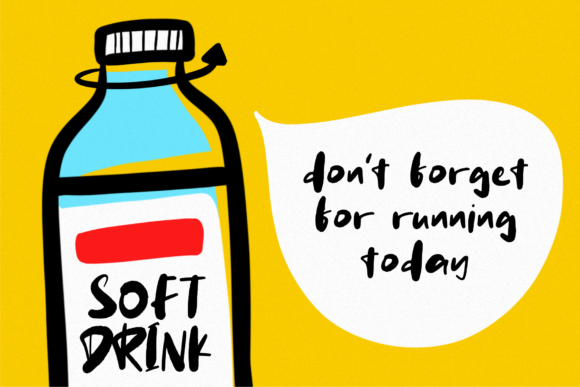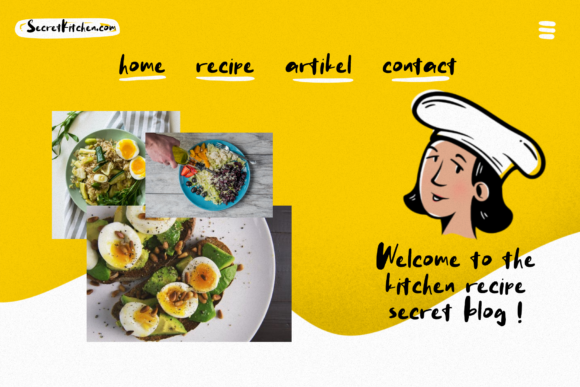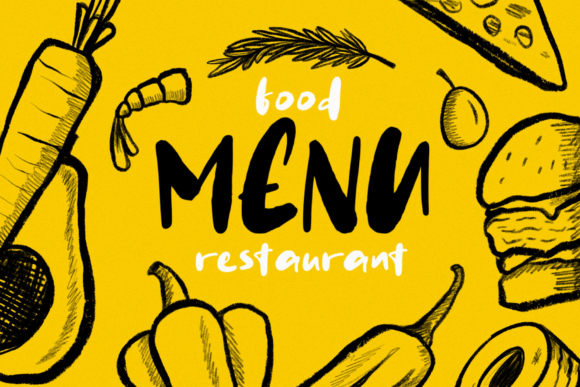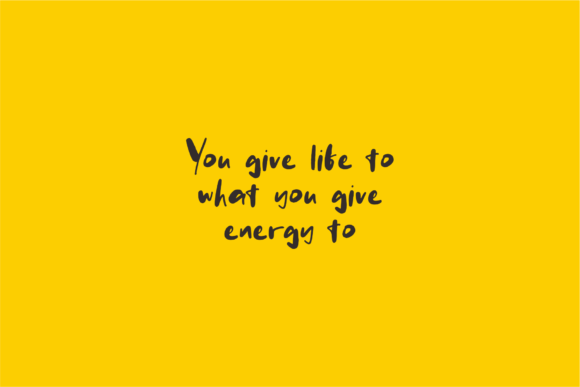
Introduction to Mindate Font
With its cute and organic handwritten style, Mindate is the perfect font for logos.
Get inspired by its hand-drawn style .
Mindate Font offers exceptional quality and versatility, making it a valuable addition to your design toolkit. Whether you’re creating for personal projects or commercial use, Mindate Font delivers professional results.